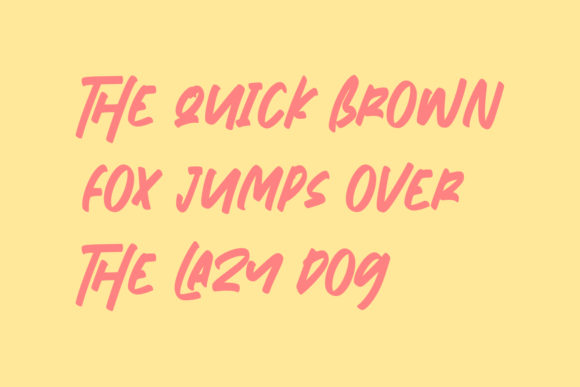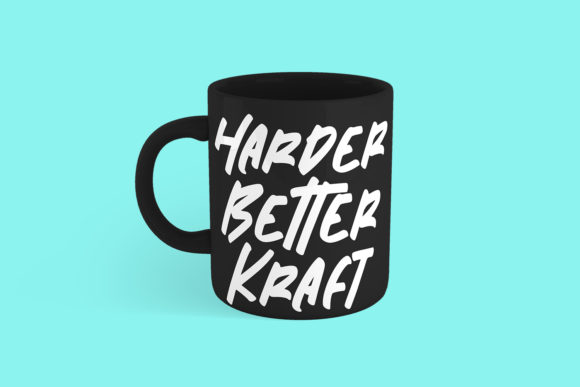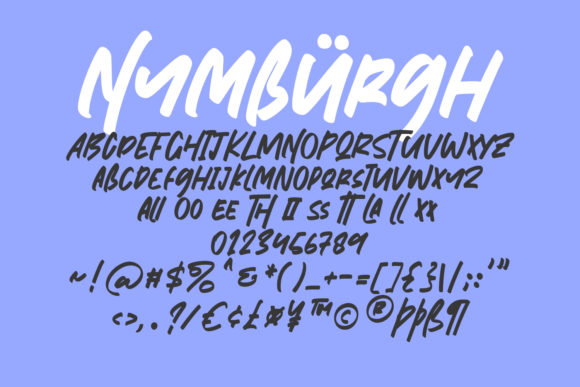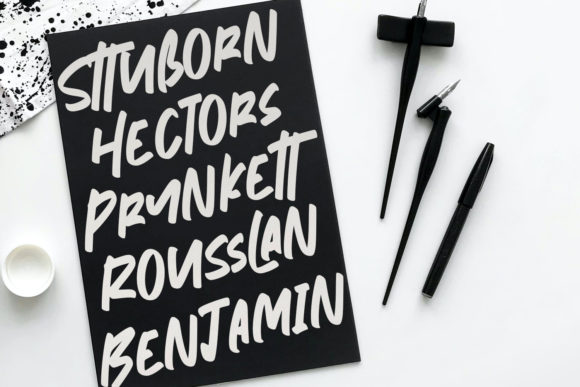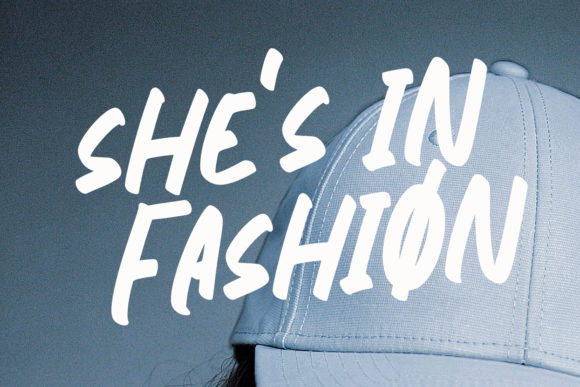
Introduction to Nymburgh Brush Font
Nymburgh Brush results out of a stunning pairing of a brush pen and pencil that makes it look incredibly endearing and authentic.
Use this gorgeous and unique handwritten font for logos, stationery, packaging, branding, book covers and much more .
Key Features of Nymburgh Brush Font